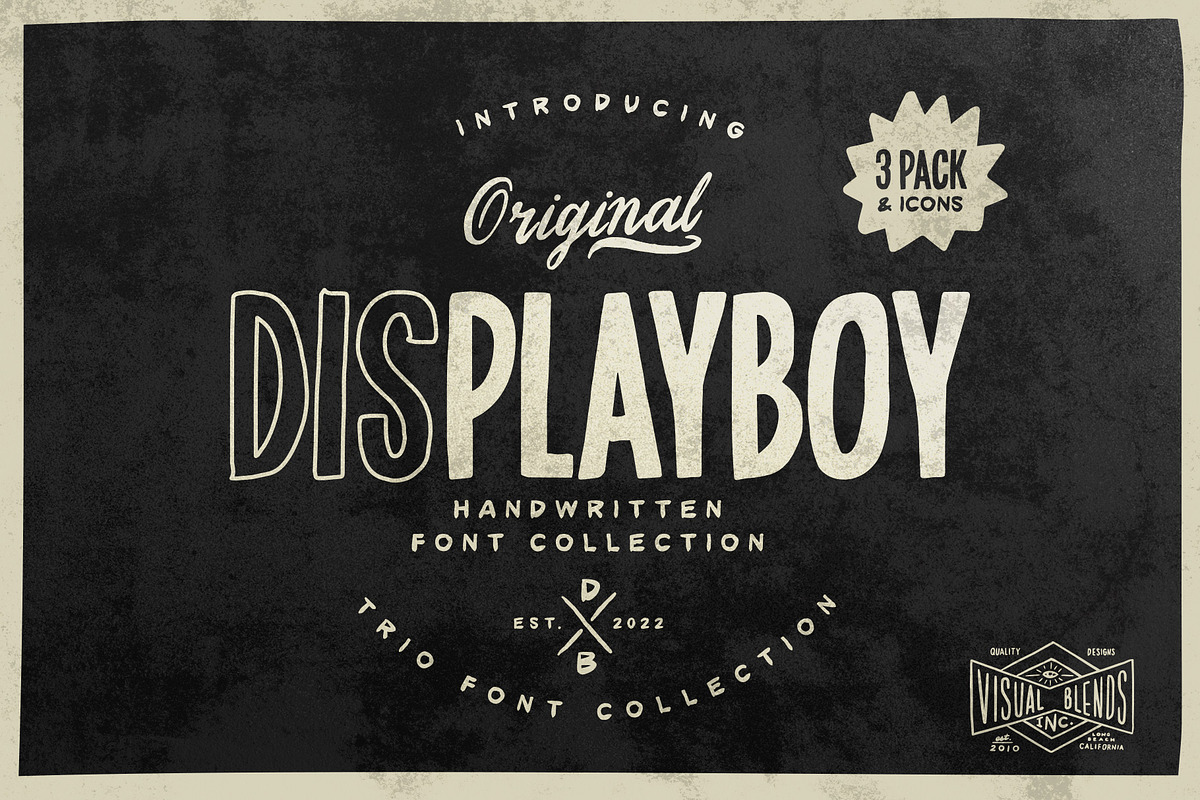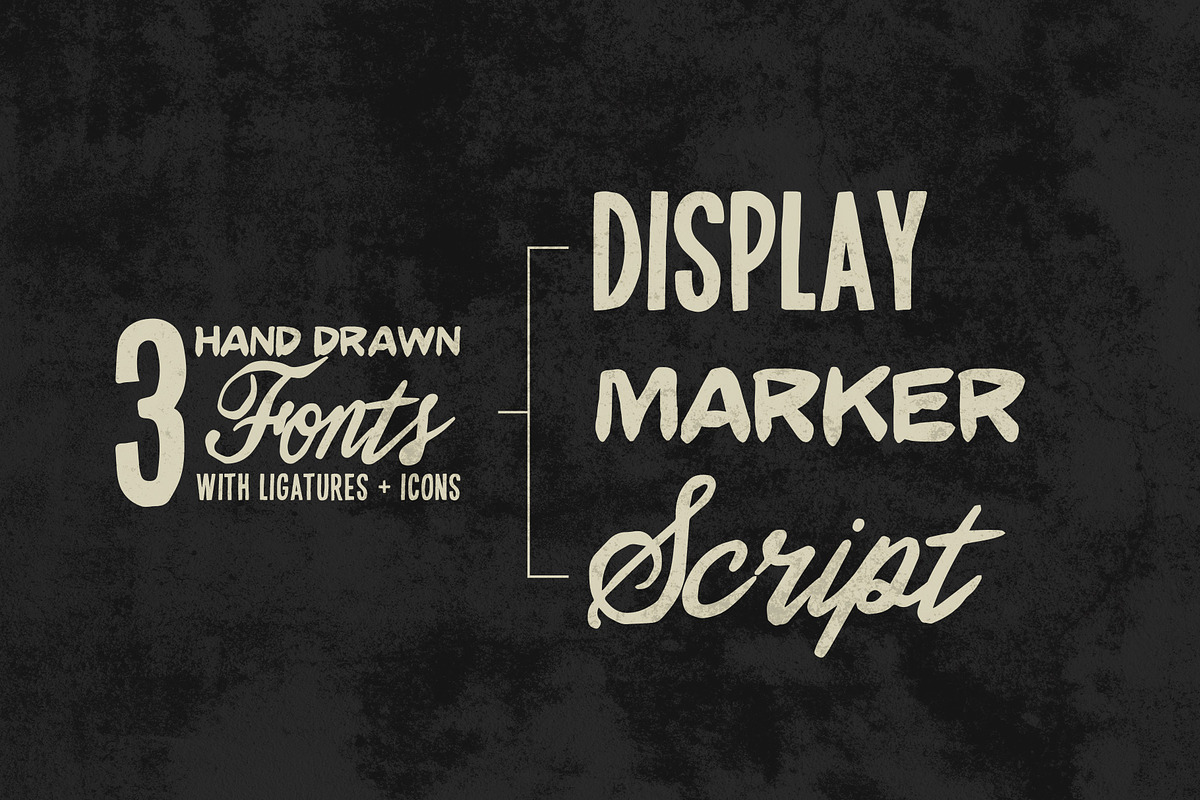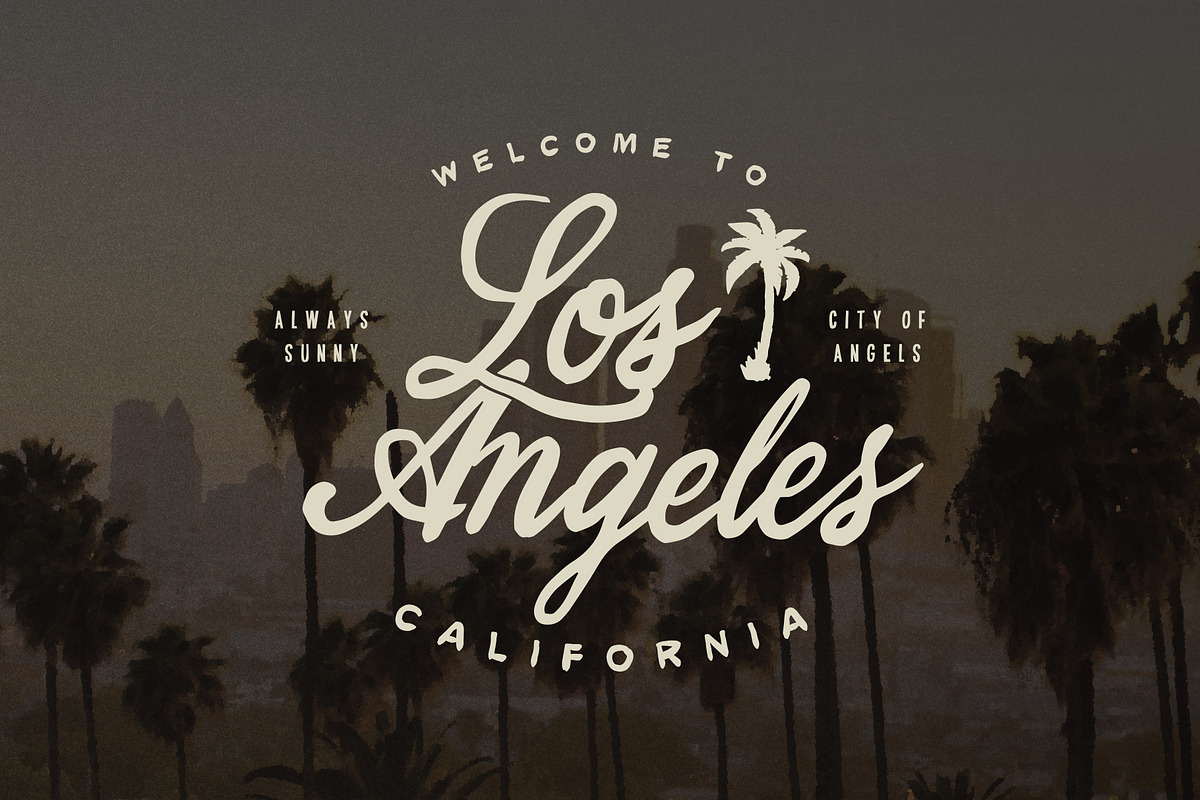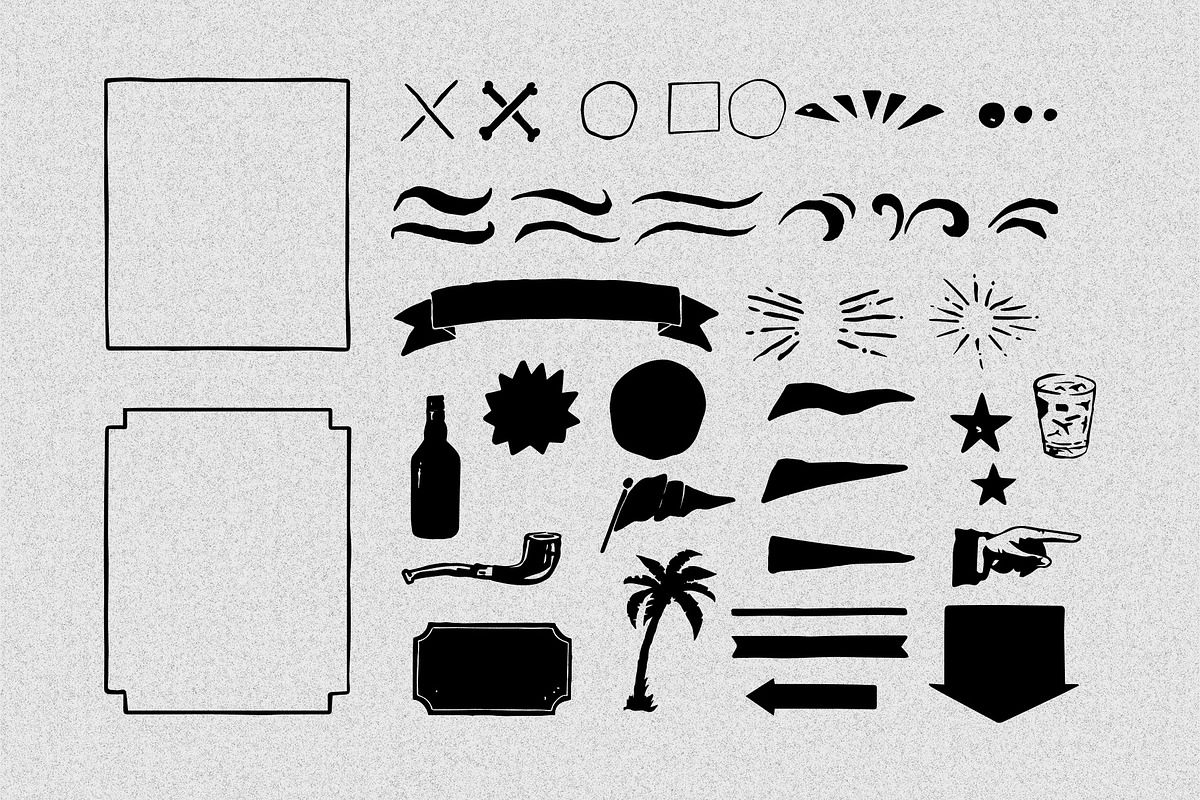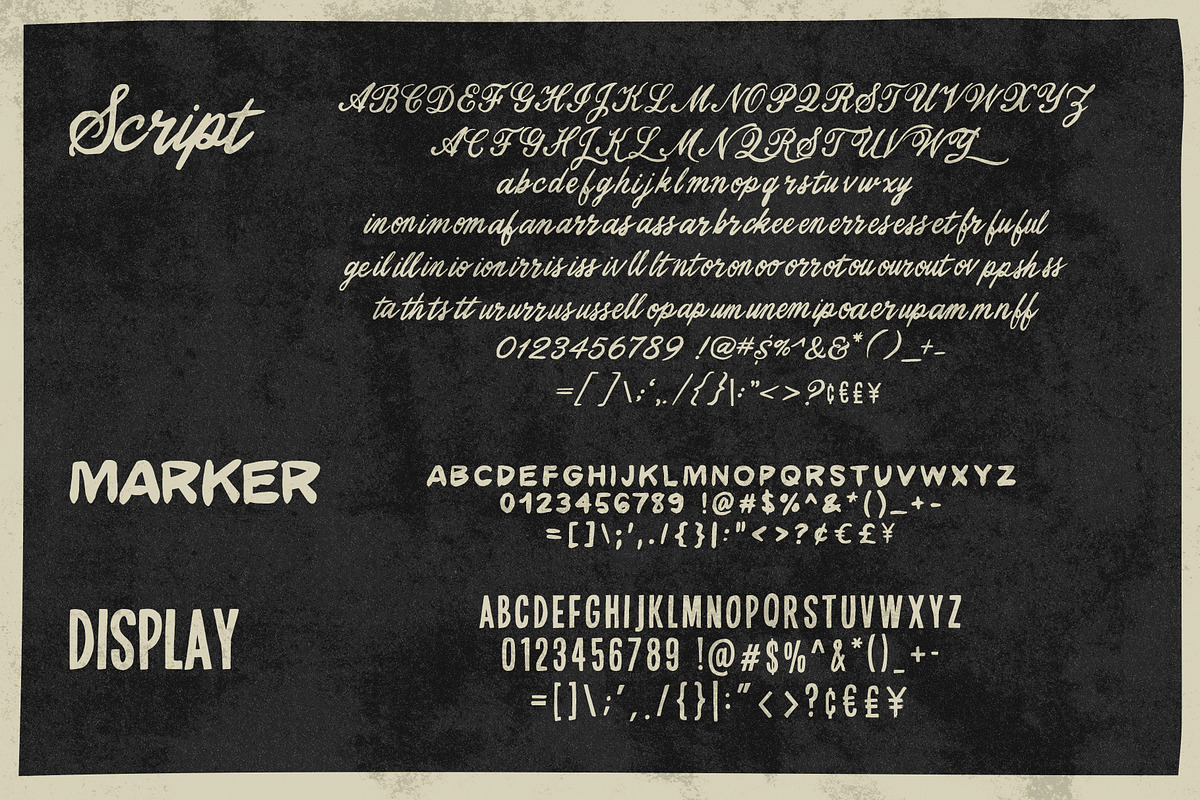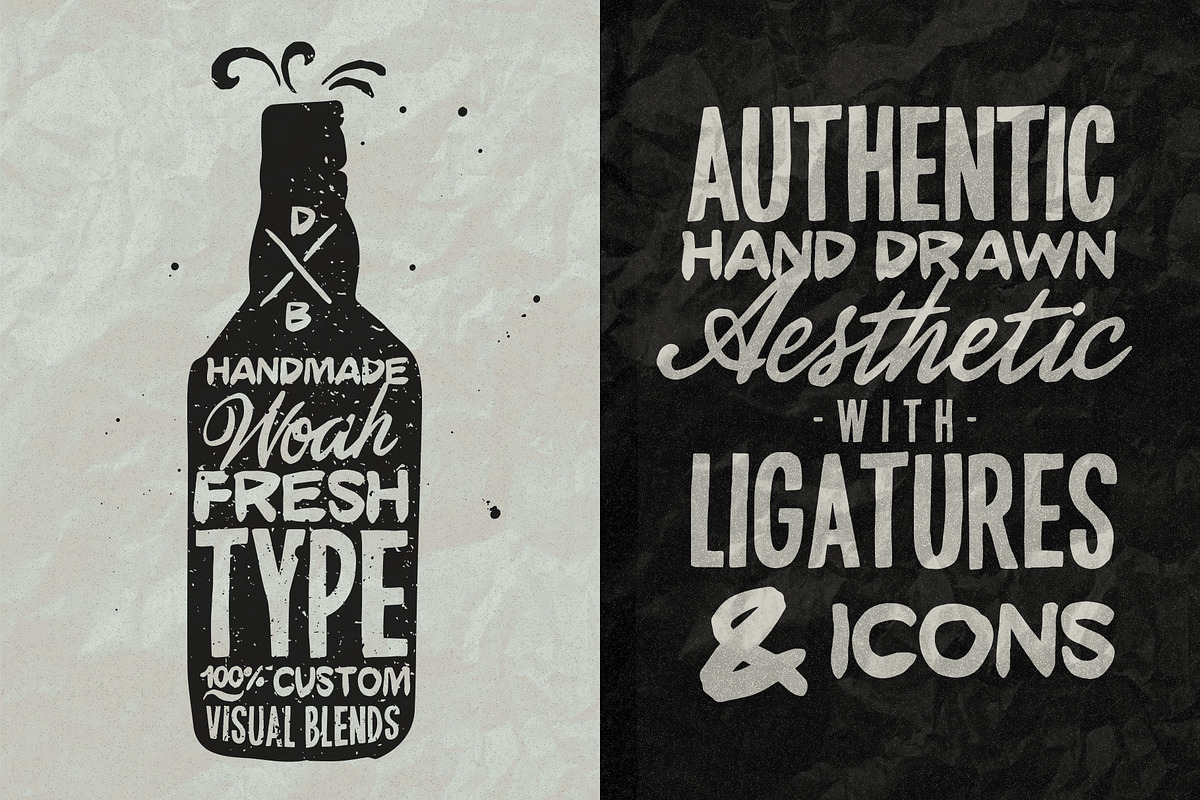
Displayboy Font Collection
Introducing Displayboy, a trio font collection. This unique mix of custom fonts are perfectly paired to give your design a handwritten aesthetic. Imperfectly perfect.
1.) Displayboy Caps - For headlines and displays.
2.) Displayboy Script - A handdrawn script font packed full of ligatures. Add swashes from icon sheet for more customization.
3.) Displayboy Marker - For headlines and displays
2.) Icon Illustrations and shapes - Included!